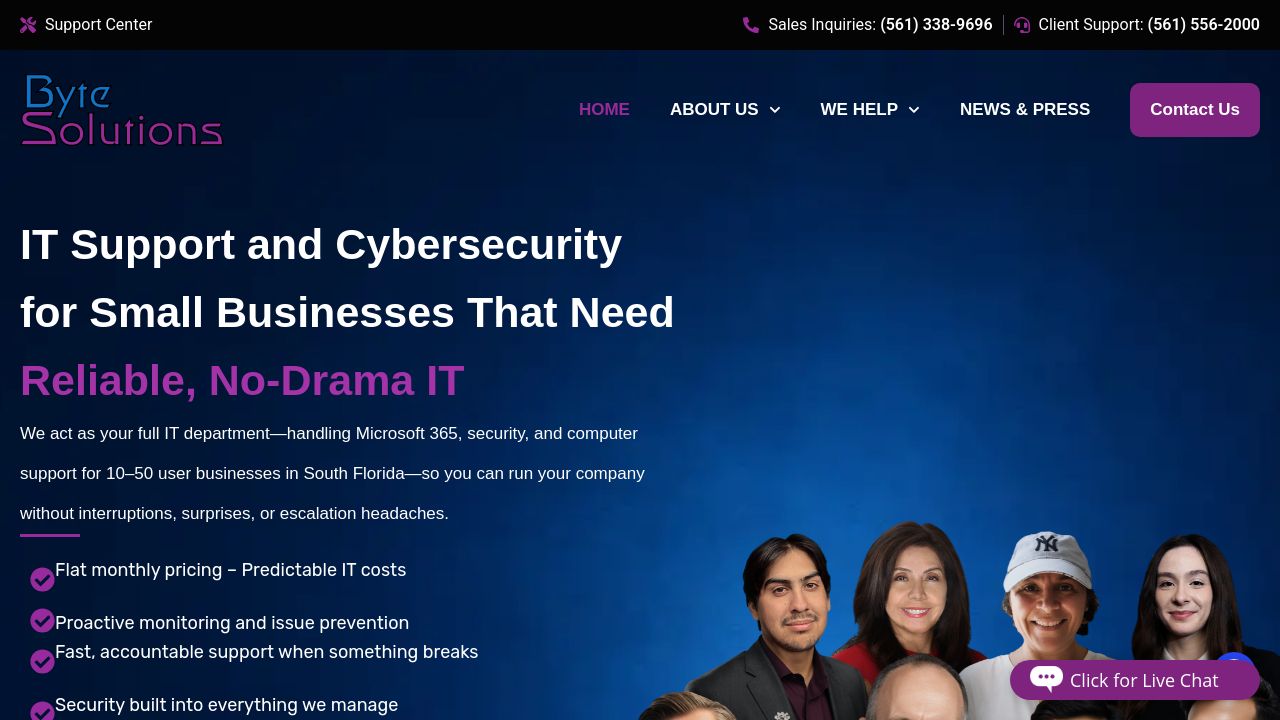
Byte Solutions: Computer Support Services and Solutions
Byte Solutions, a leading provider of IT support services in Boca Raton, utilizes a typography strategy that enhances its brand identity. The primary font, Roboto, offers clarity and readability, while Rubik and Nunito add a unique touch, suggesting a friendly yet capable approach to technology. These font choices reflect Byte Solutions' commitment to empowering businesses through comprehensive computer support and cloud solutions, ensuring effective communication with their audience.
The primary fonts used on bytesolutions.com are Roboto, Rubik, and Nunito. Roboto is the main typeface, while Rubik and Nunito are employed for specific styles.
Roboto is known for its geometric yet friendly design, making it a popular choice. Rubik and Nunito offer unique characteristics that set them apart from alternatives like Arial or Helvetica.
Roboto is used at a weight of 400, while Rubik is utilized at 300 and Nunito at 200. This variety allows for flexibility in typography and design.